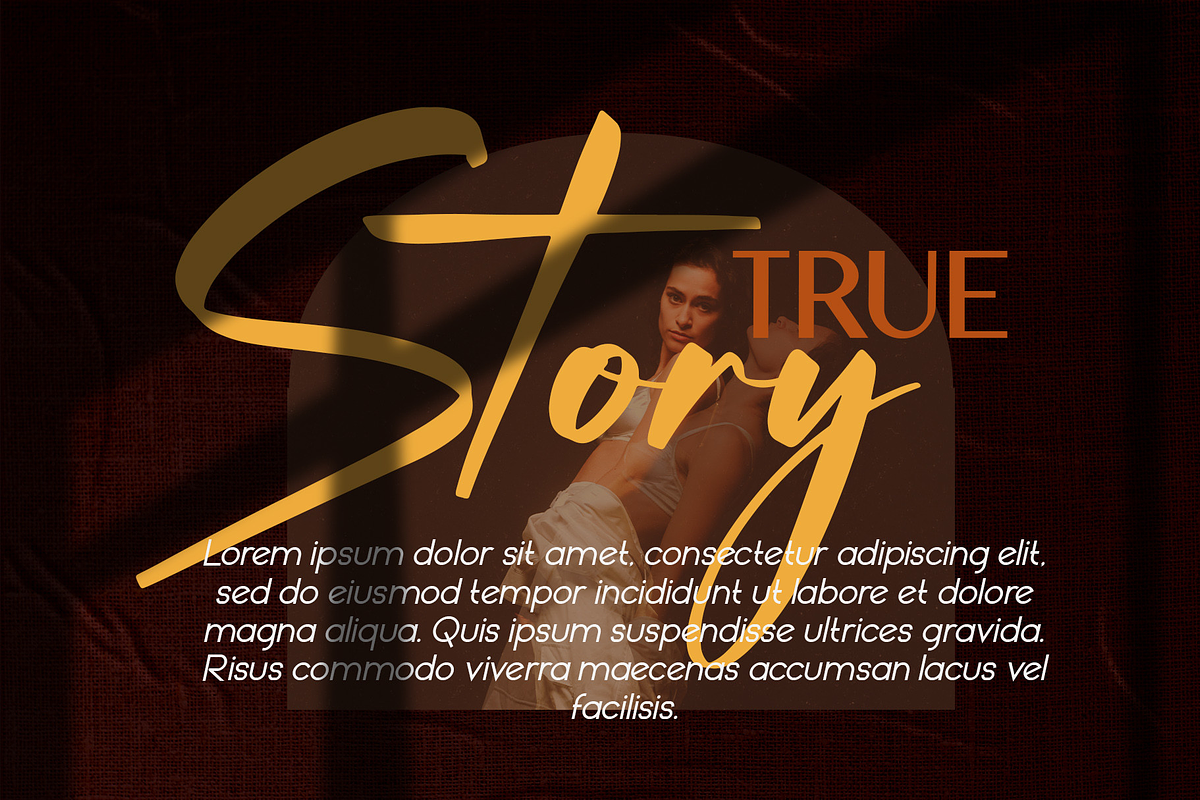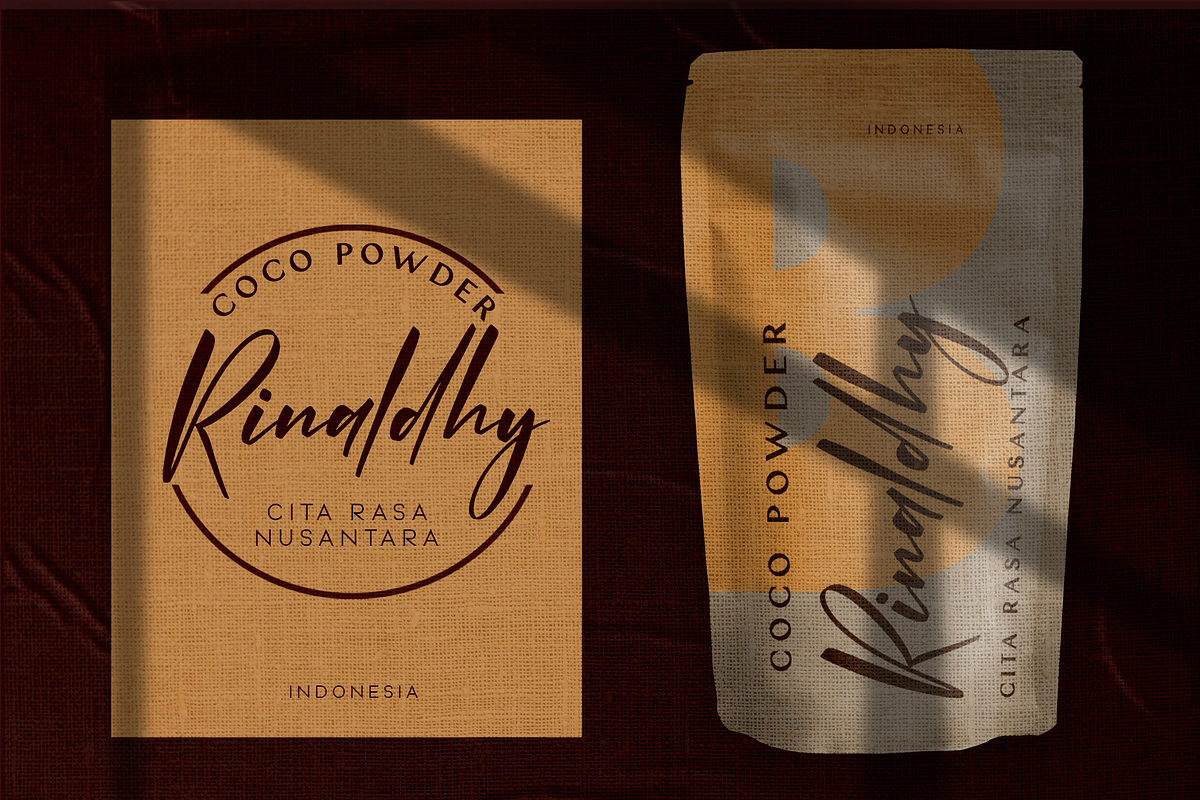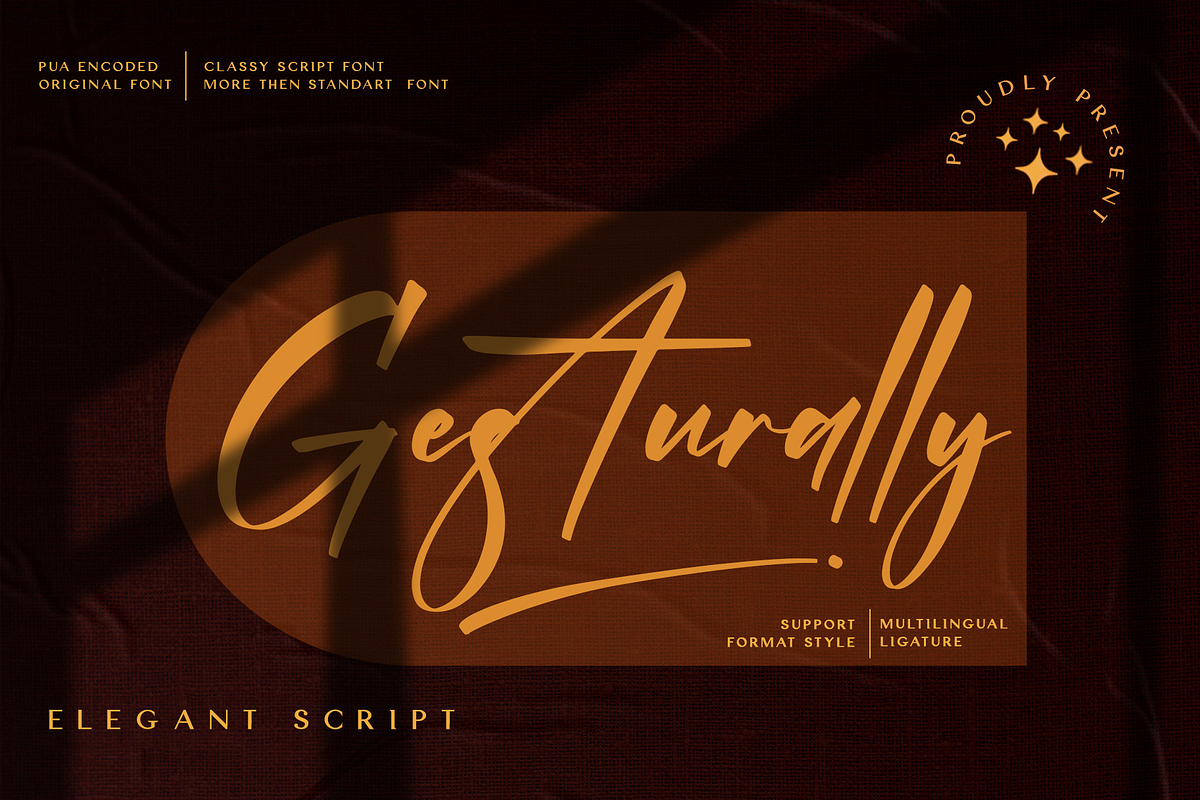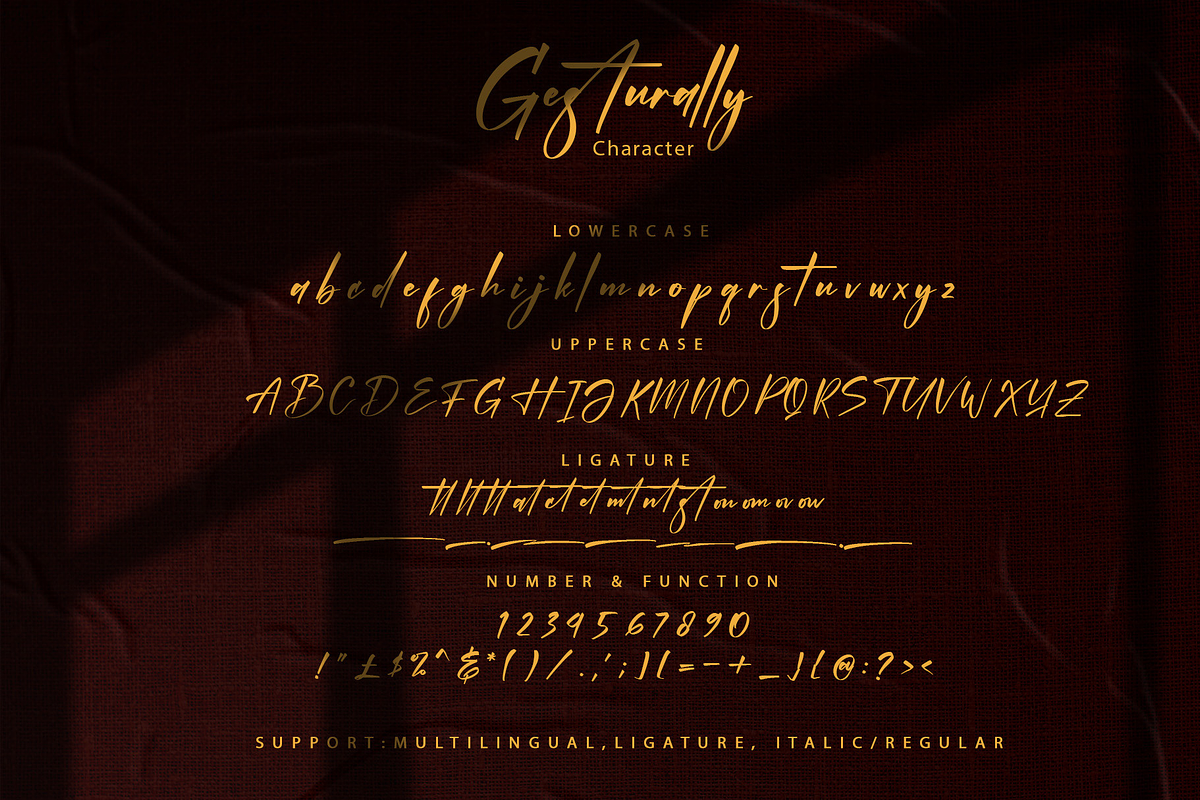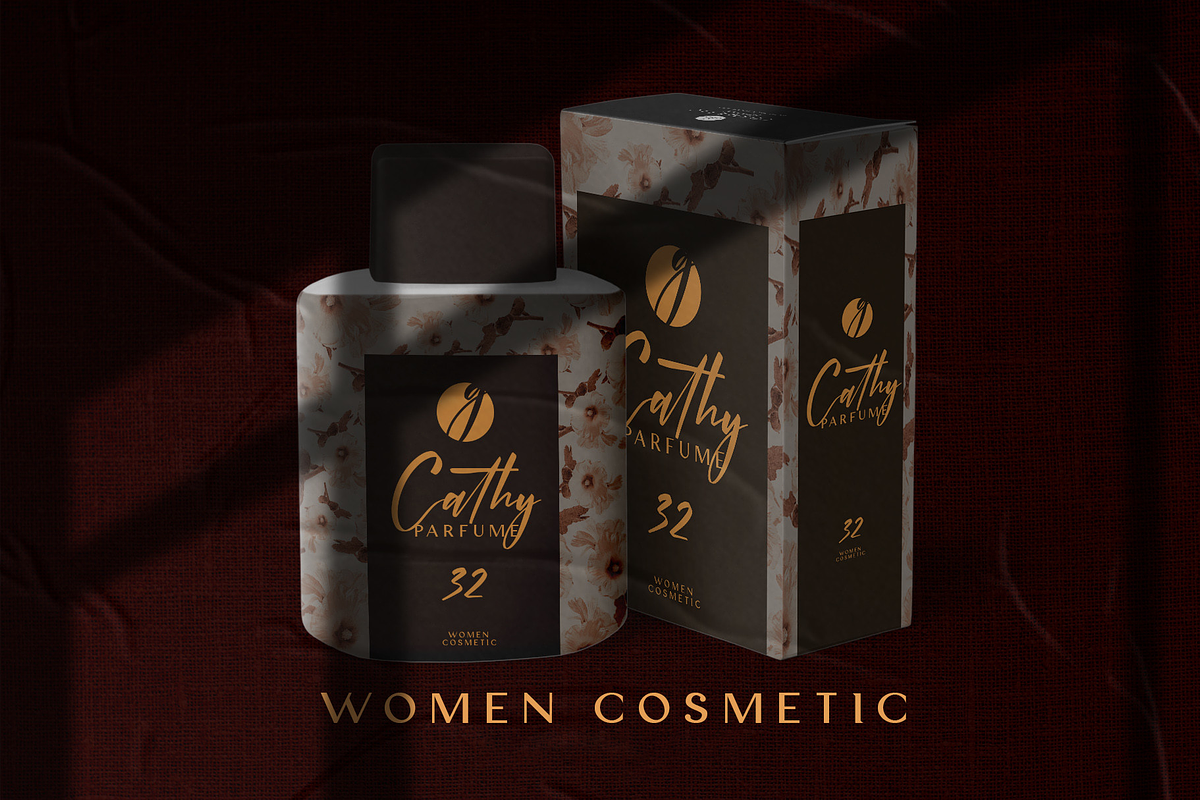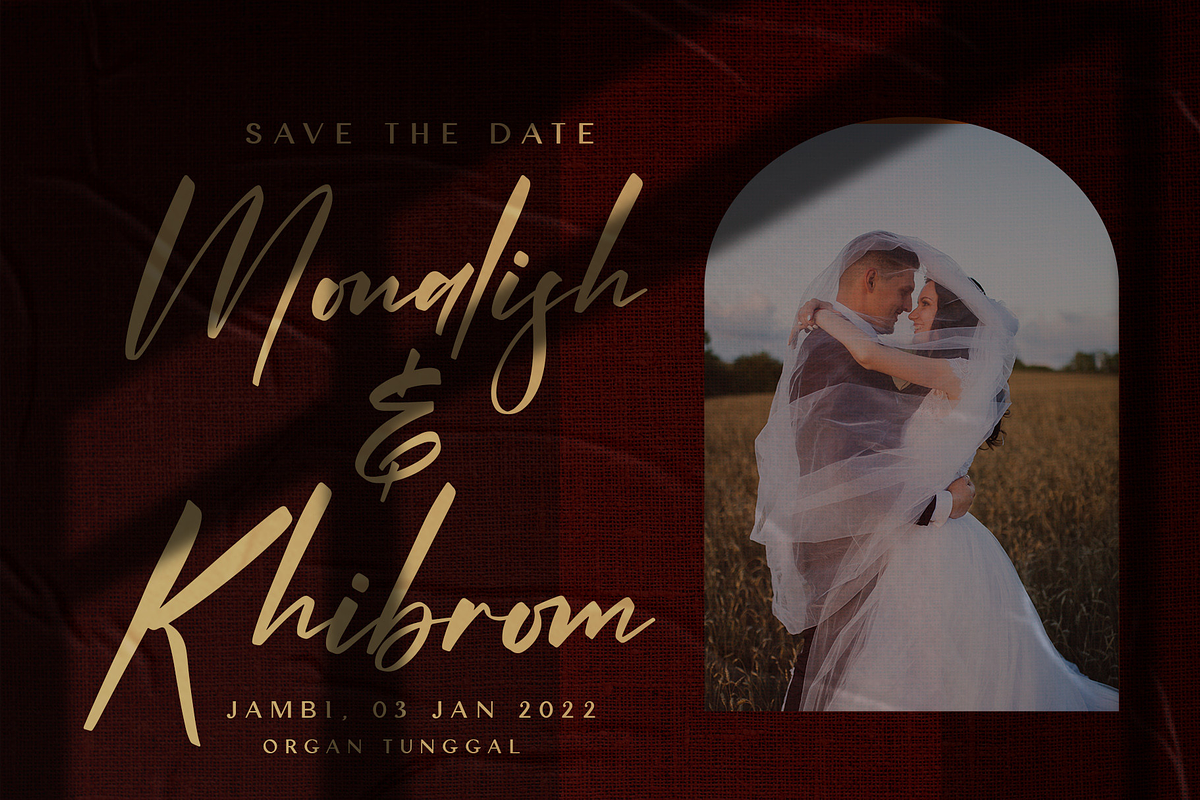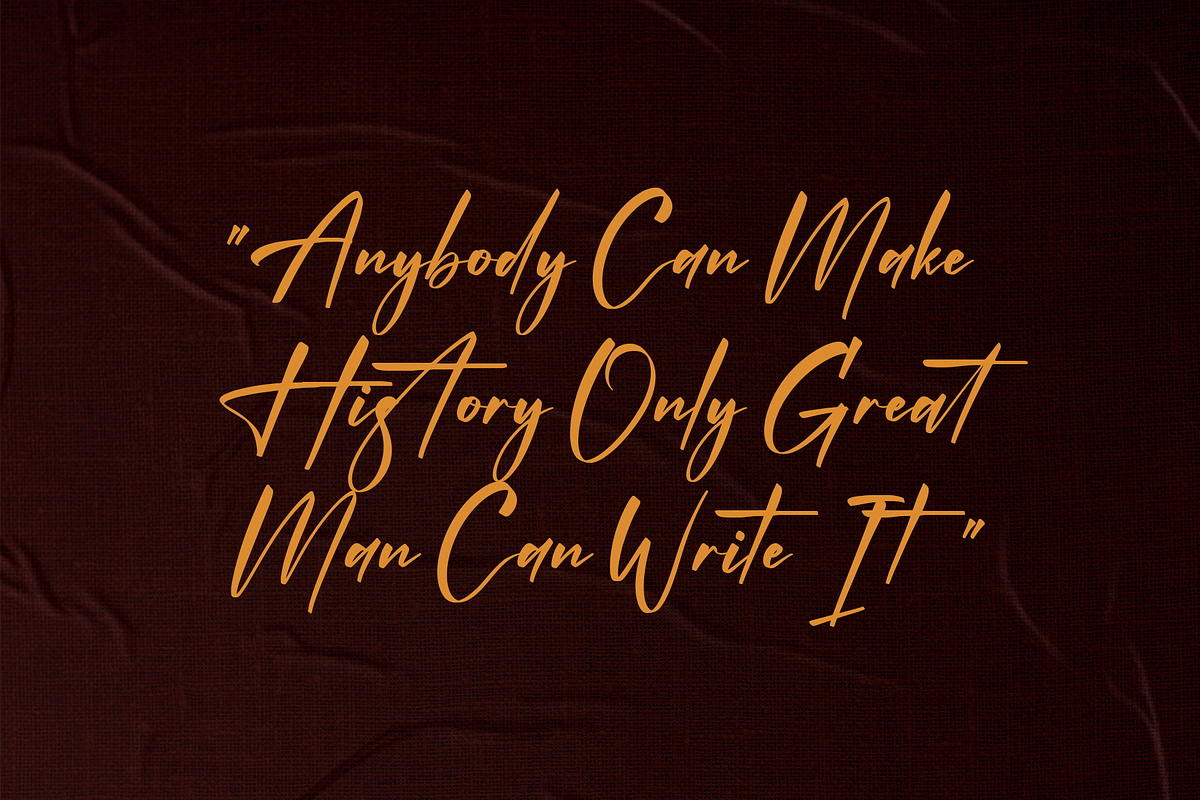
Gesturally
Gesturally is a casual and trendy handwritten font, crafted to give your headlines and logotype projects a stylish touch. This font reads as strong, confident, and dynamic and can add tons of nostalgic character to your designs.